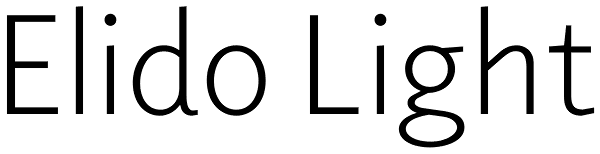
Elido
Elido (Odile in reverse) is the sans counterpart to the Odile type. Together they form a sans/serif superfamily with a wide range of variations for editorial use. Elido follows Odile’s proportions and matches the weight and typographic color of its...